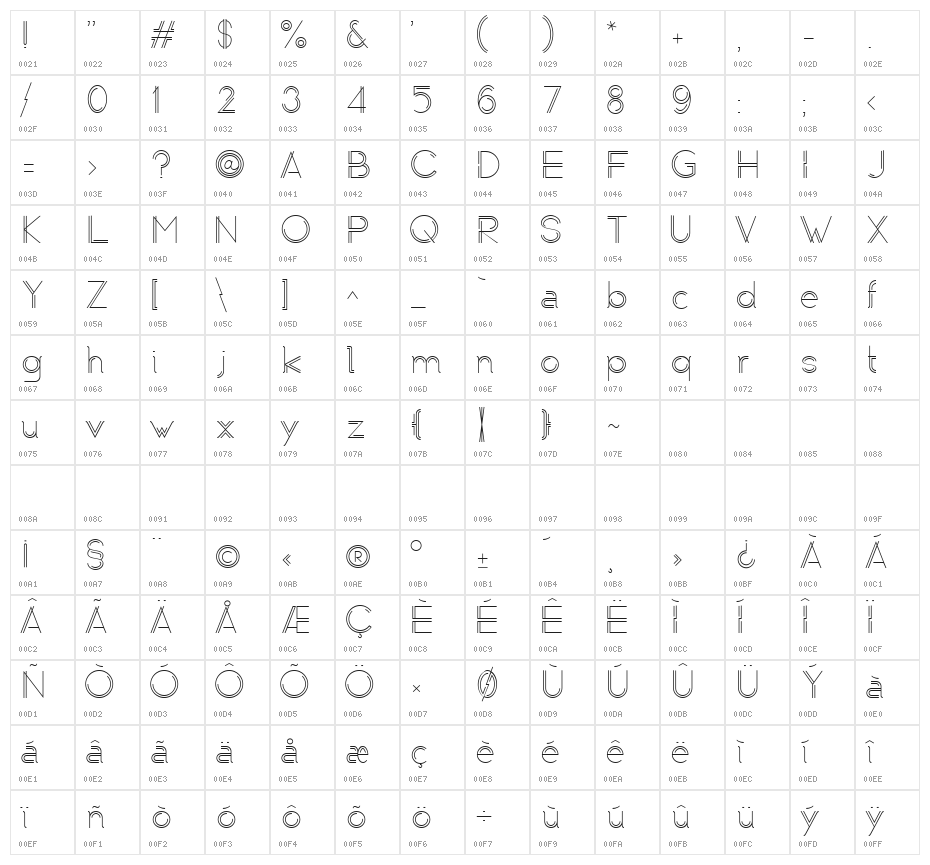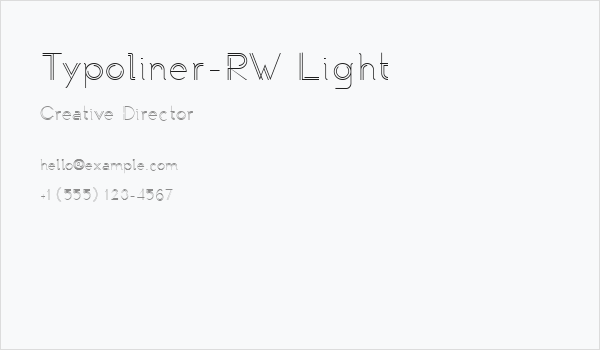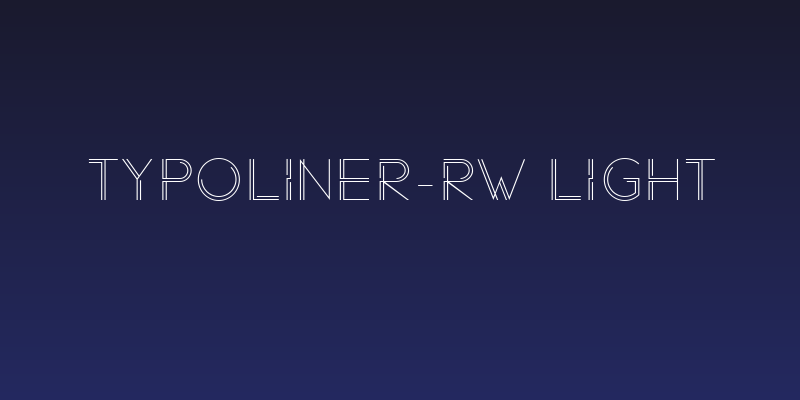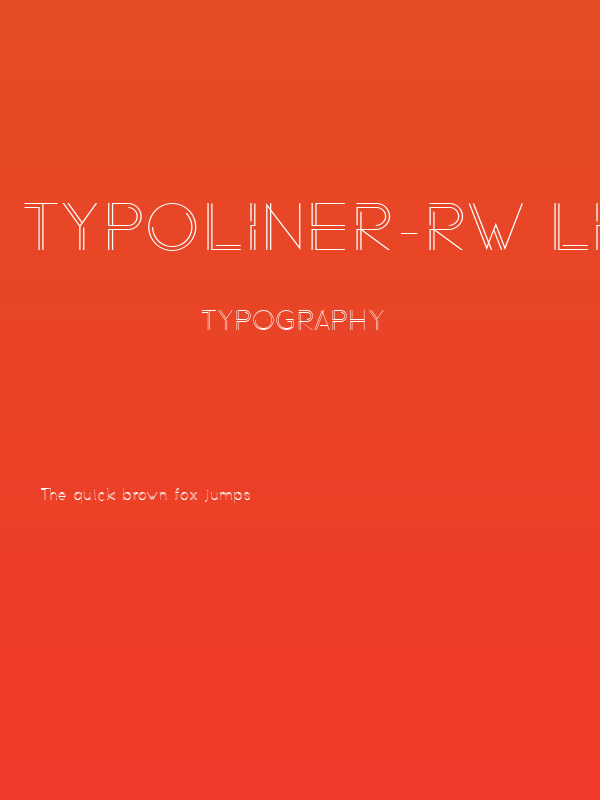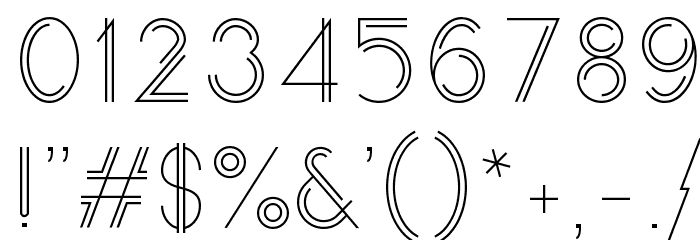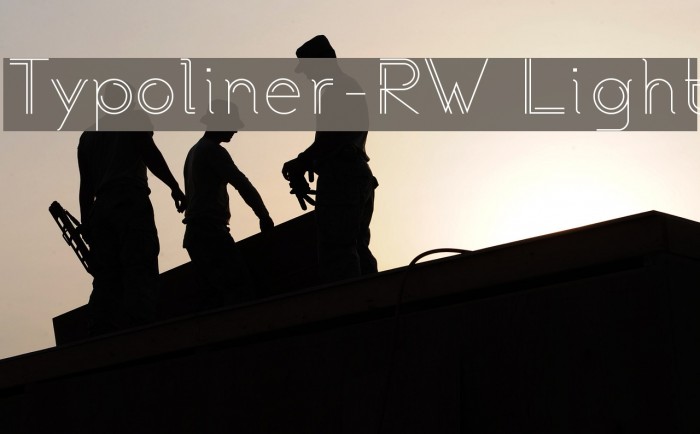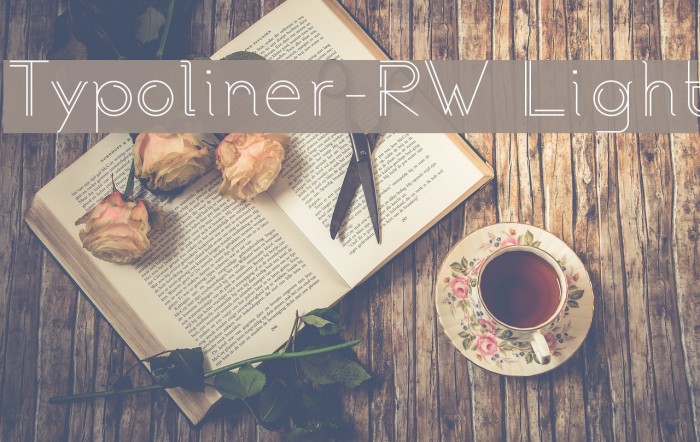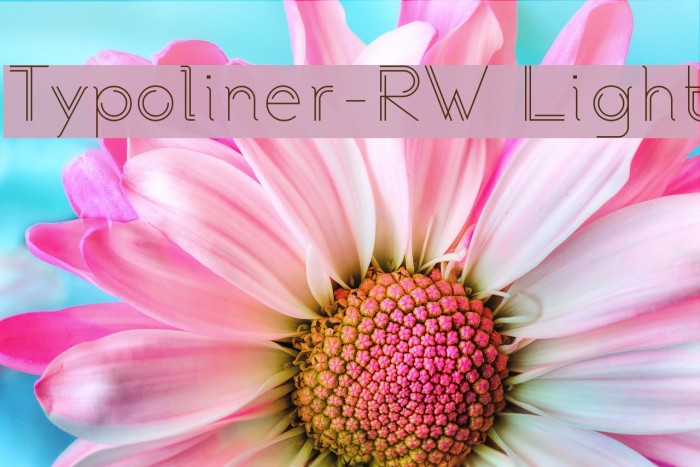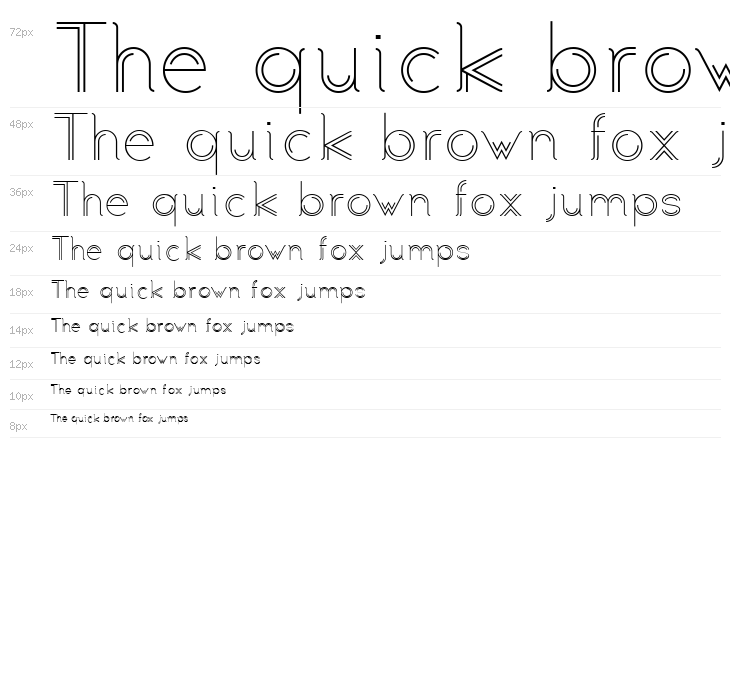
Typoliner-RW Light Font
Typoliner-RW Light Description
This font features a modern, geometric design with clean lines and a minimalist aesthetic. The characters are constructed with a double-line technique, giving them a unique, outlined appearance. The uppercase and lowercase letters maintain a consistent style, with rounded edges and a uniform stroke width. The numerals and special characters follow the same design principles, ensuring a cohesive look across all elements. This font's open and airy structure makes it ideal for projects that require a contemporary and stylish touch.
| Proposed Projects | Ideal for branding, logos, posters, and modern web design projects. |